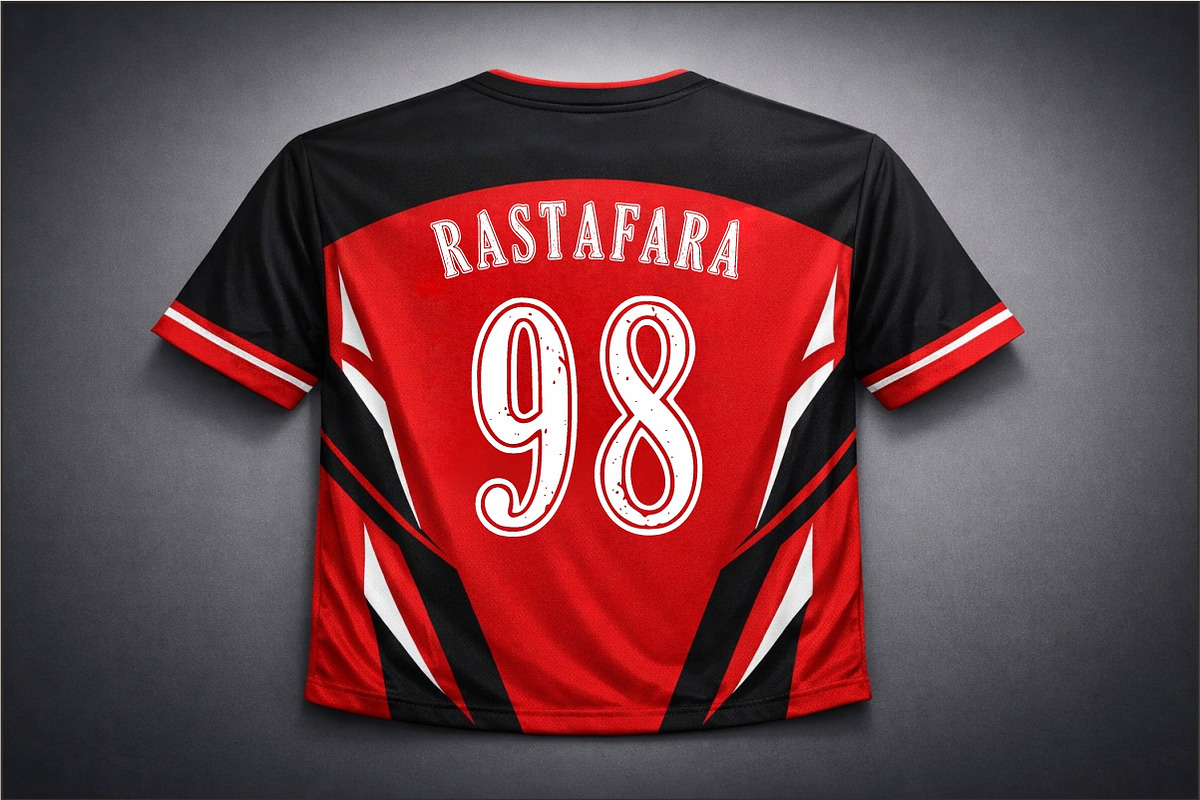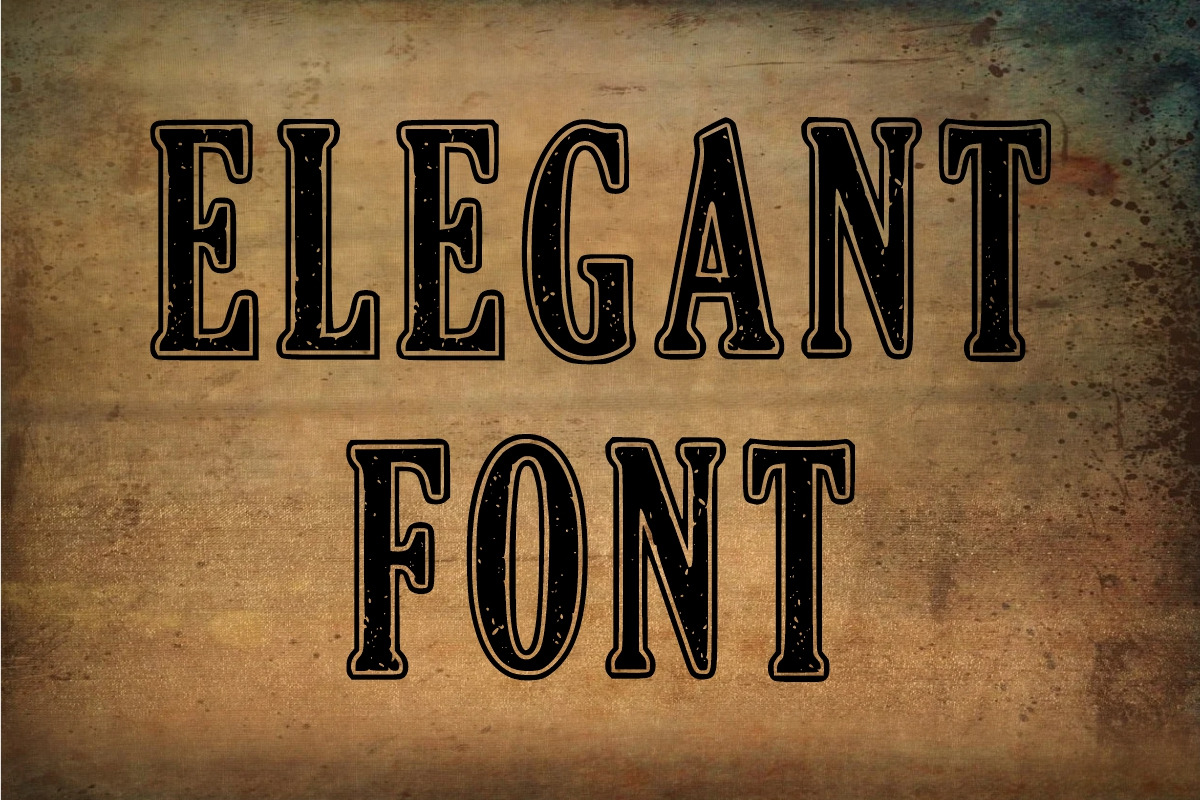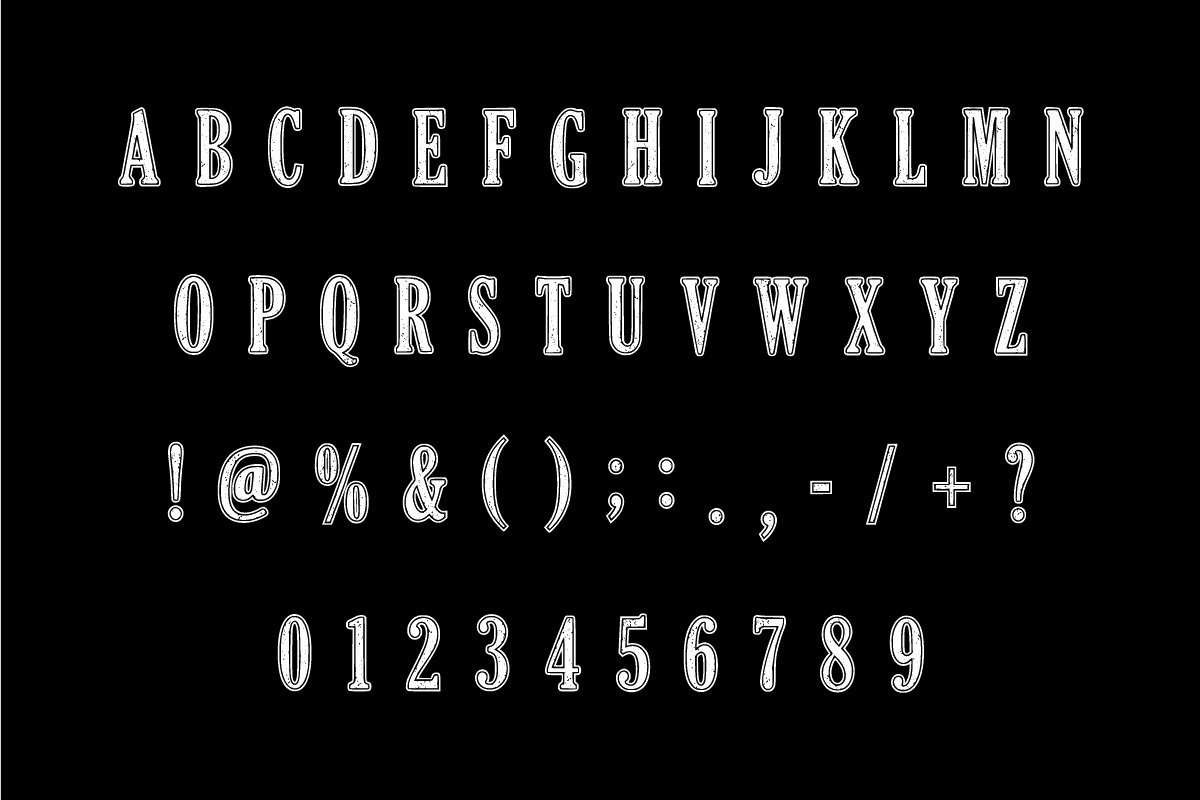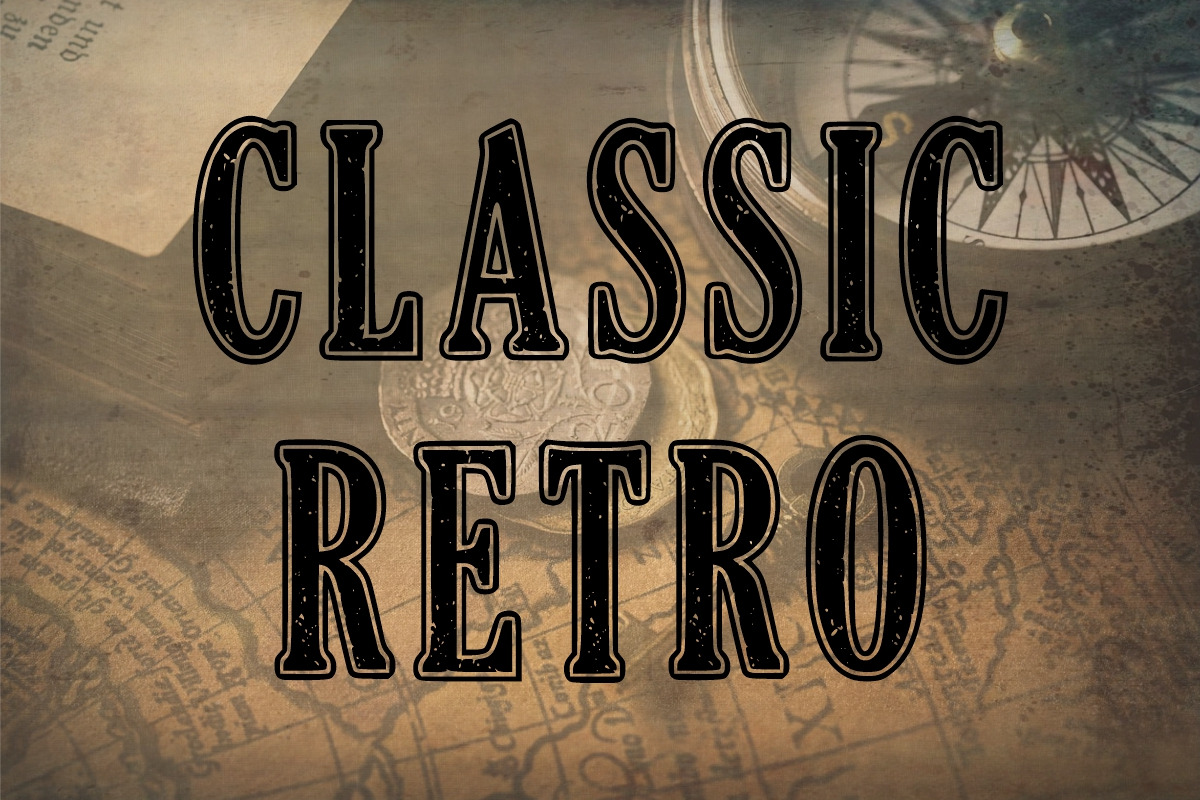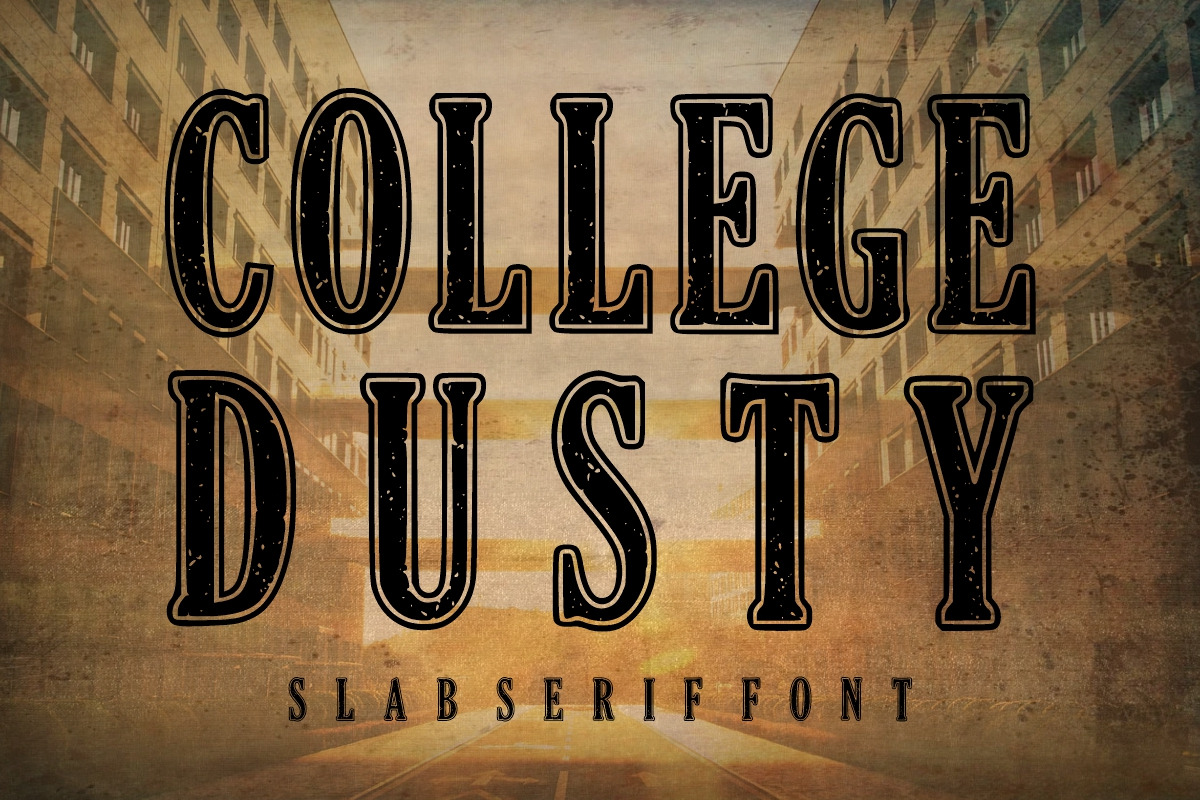
College Dusty – Vintage Font
College Dusty is a bold and rugged slab serif display font inspired by classic collegiate typography, vintage varsity graphics, and weathered print aesthetics.
Its strong letterforms combined with distressed details give your designs an authentic aged and retro feel while maintaining excellent visual impact.
College & varsity designs
Sports team branding
T-shirt and apparel designs
Vintage posters
Logos & badges
School merchandise
Retro signage
Stickers & labels
Album artwork
Packaging
Cricut & cutting projects